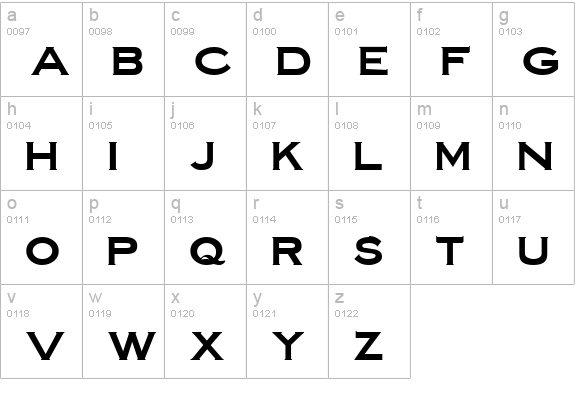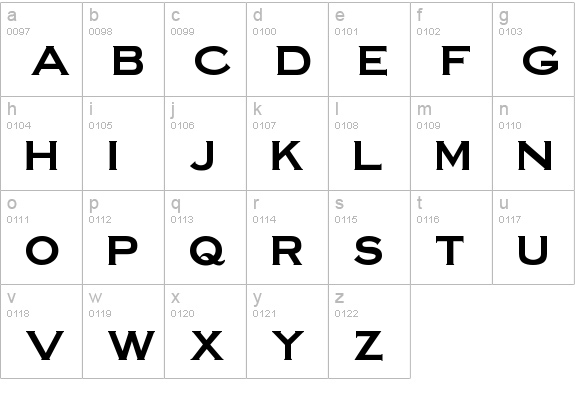
Ulster Font Details
The Ulster font is a modern and versatile typeface that strikes the perfect balance between elegance and readability. Its sleek lines and clean design make it ideal for a wide range of projects, from branding and advertising to web design and editorial work. One of the best things about the Ulster font is that it is available for free download at FontsMarket.com. This means that you can easily access this beautiful font without any cost, making it a fantastic option for designers and creatives looking to enhance their work with a high-quality typeface. Whether you're working on a logo, a website, or a print publication, the Ulster font is sure to make a strong impression. Its bold yet sophisticated style will help your designs stand out and grab the attention of your audience. Don't miss out on this amazing font - download Ulster today and elevate your creative projects to new heights!